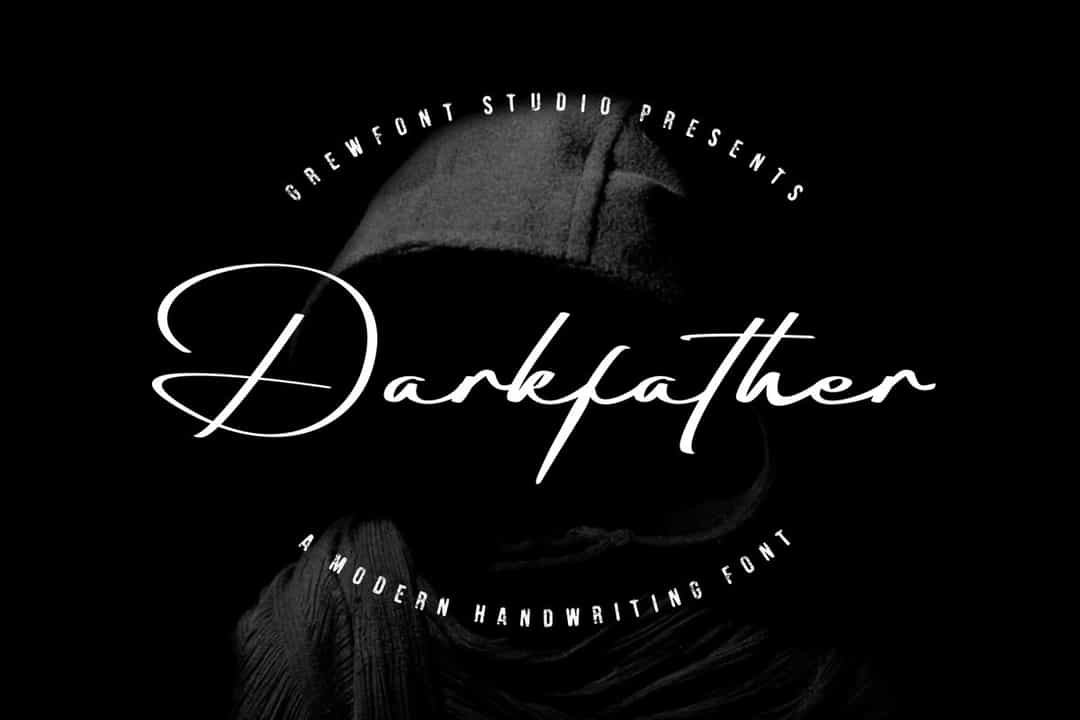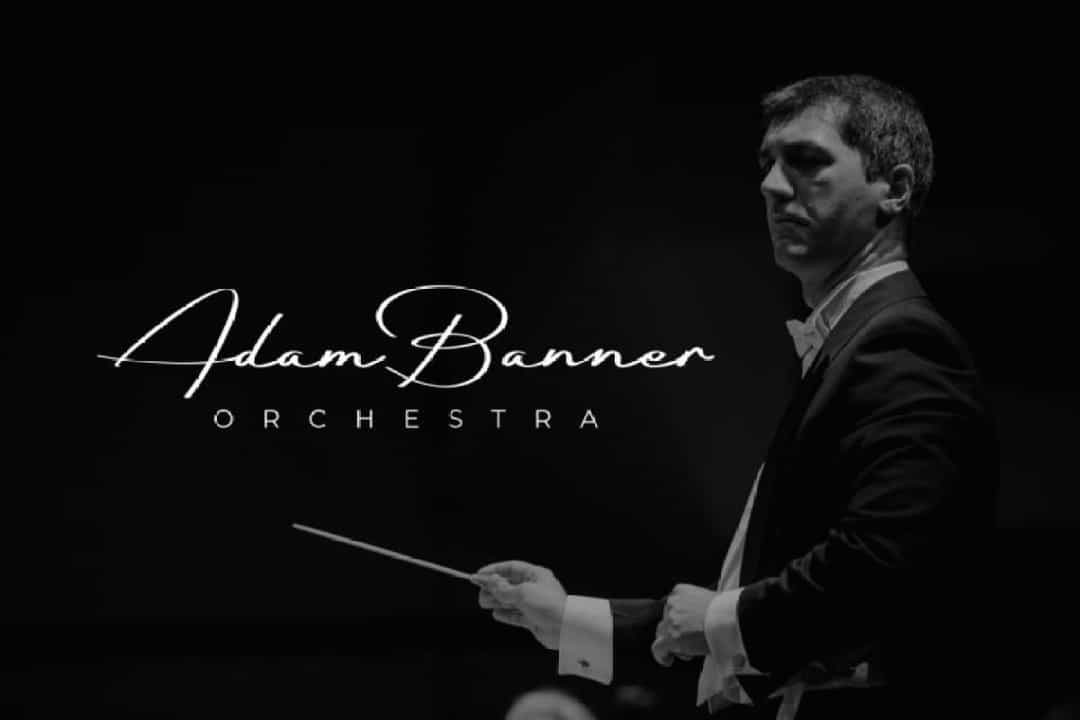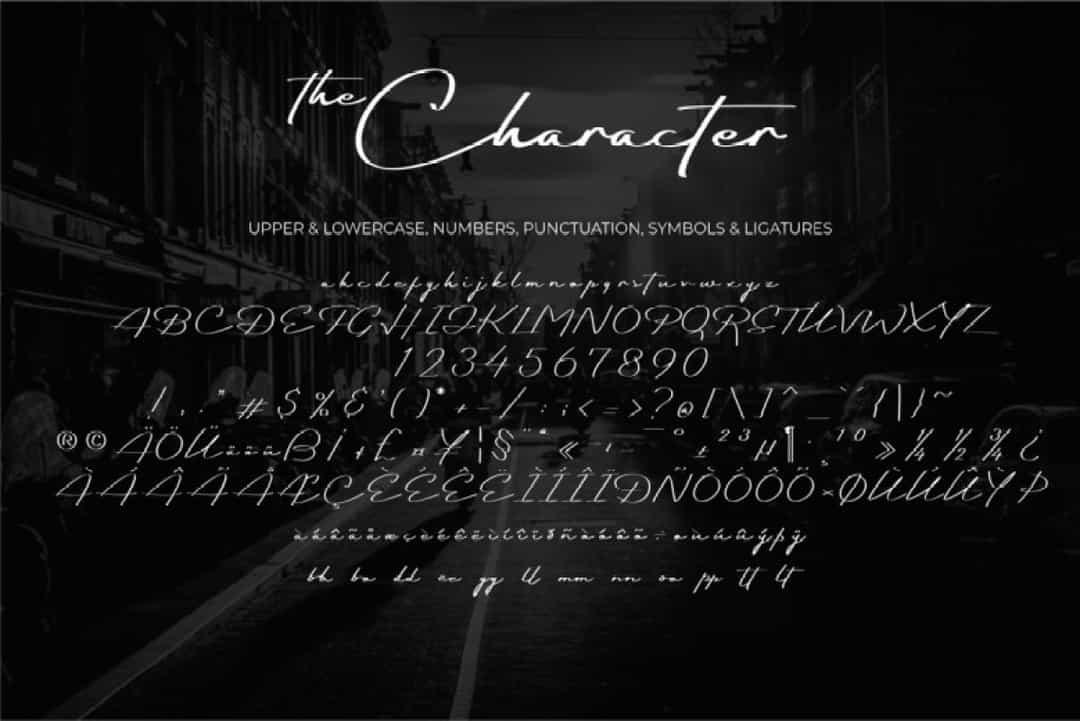
Discover Darkfather Font, part of the Handwritten Script collection—a versatile and unique font perfect for adding a personal touch to your projects. Download it for free and enjoy crafting designs with style, from invitations to social media posts. This font is available exclusively for personal use, giving you the freedom to create without limits. Unlock your creativity with Darkfather Font today!
Darkfather is a typography icon of the old school, giving a unique touch to all the projects it is applied to. This stunning calligraphic font can be a catchy heading or wordmark and can also be used in logo design or any other graphic projects which need natural handwritten effects.